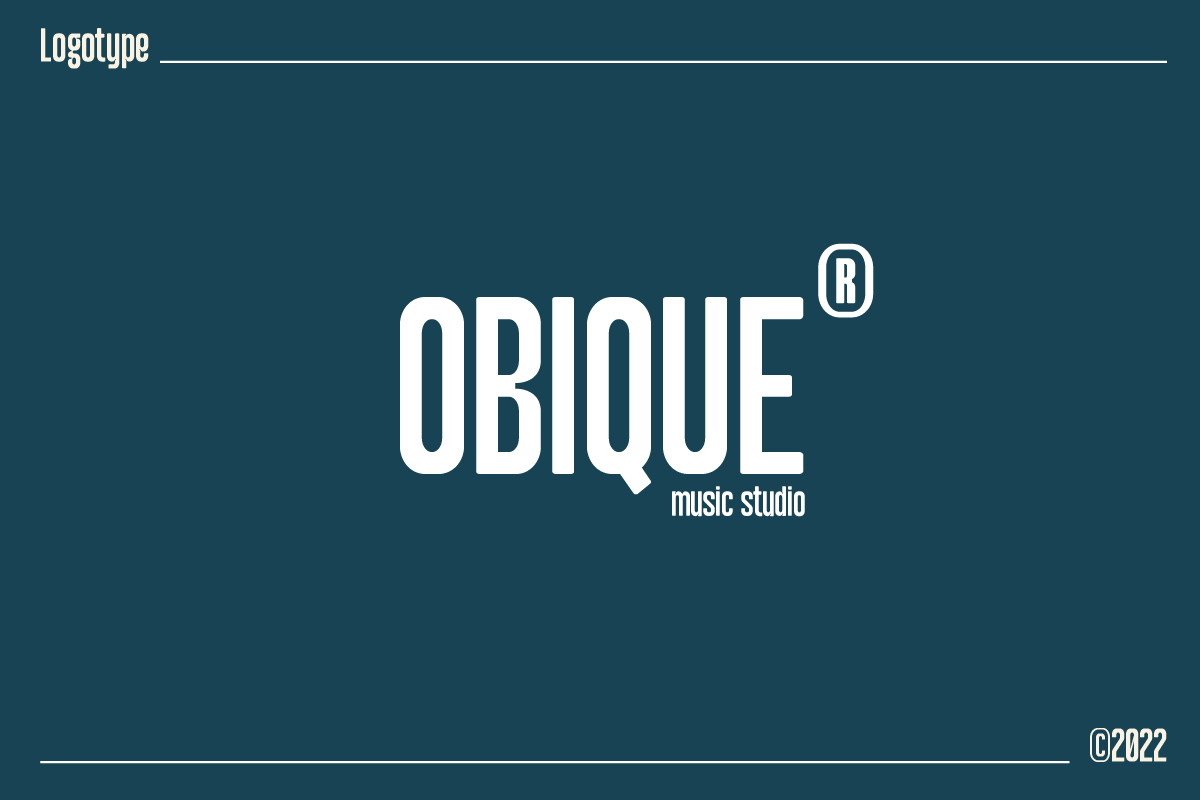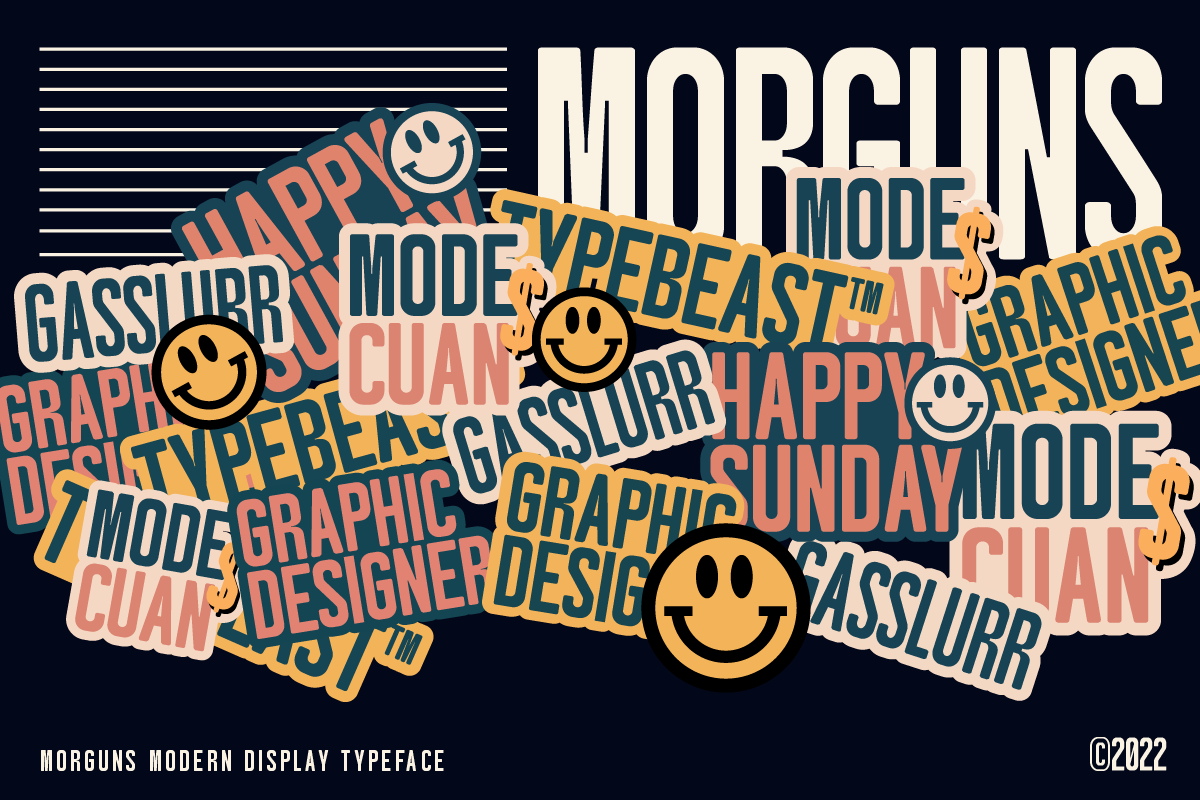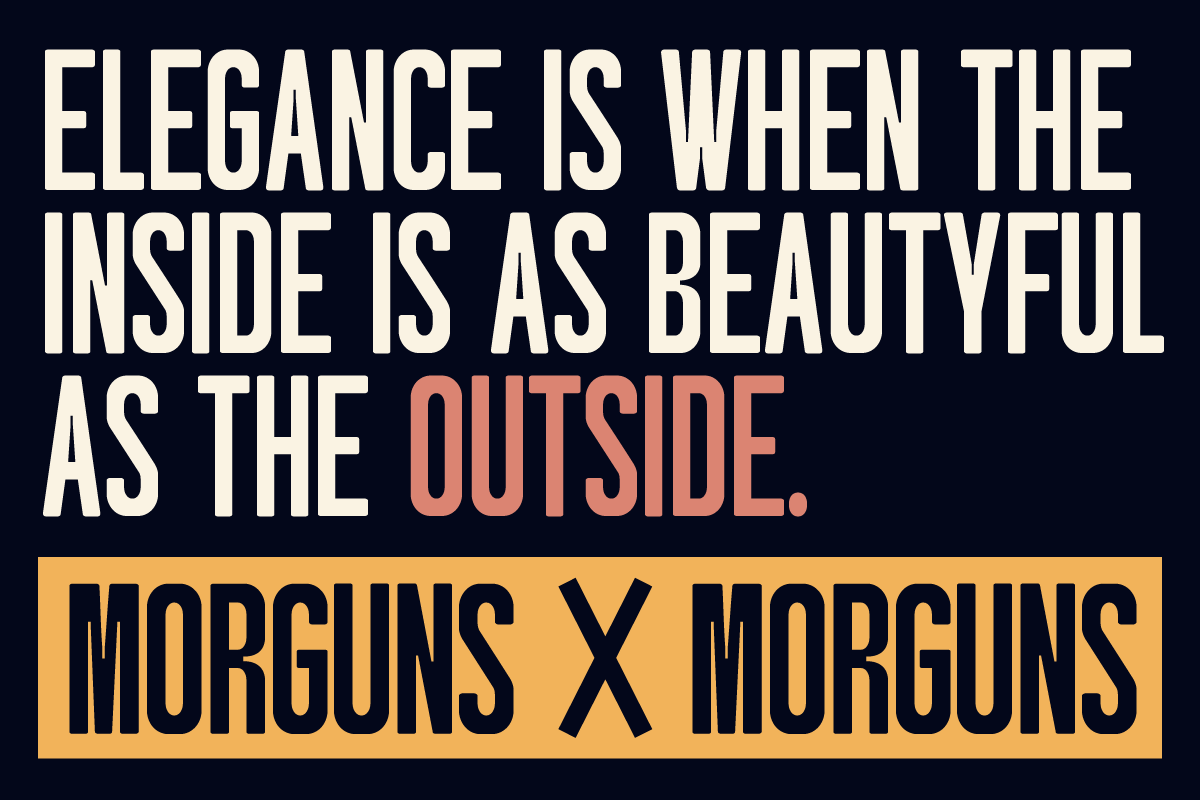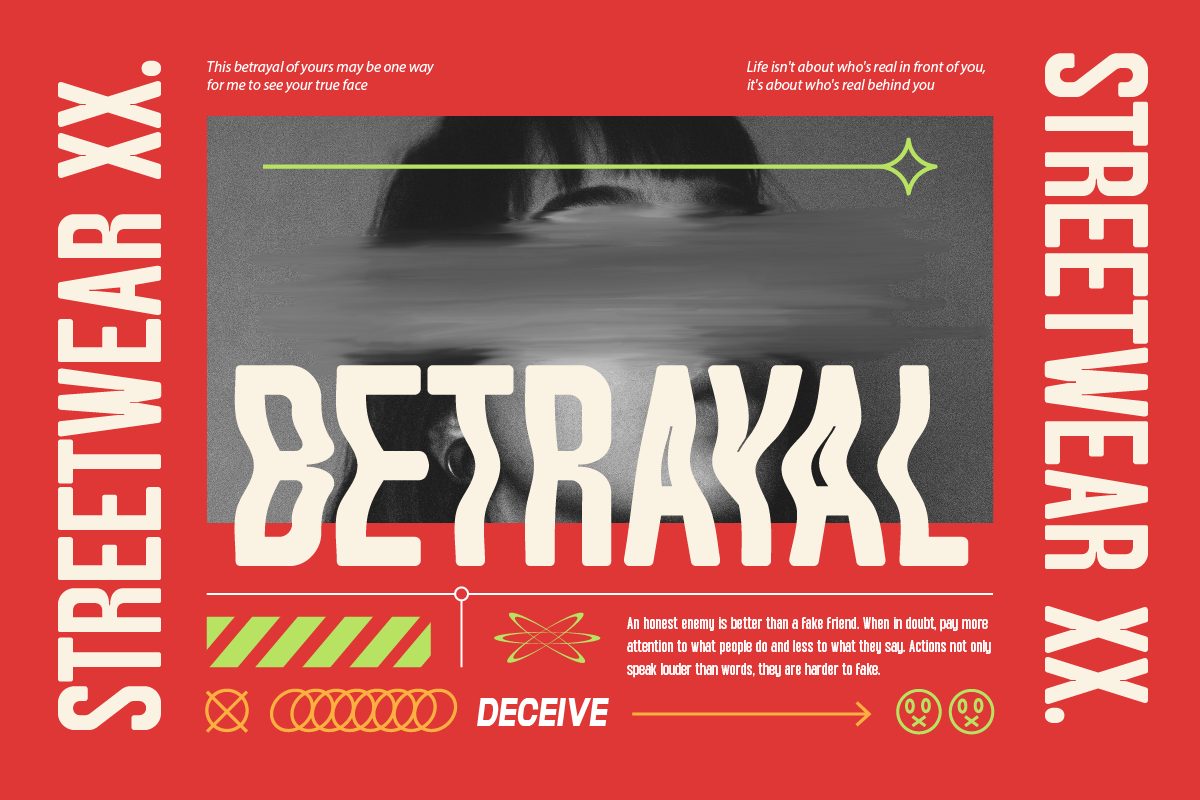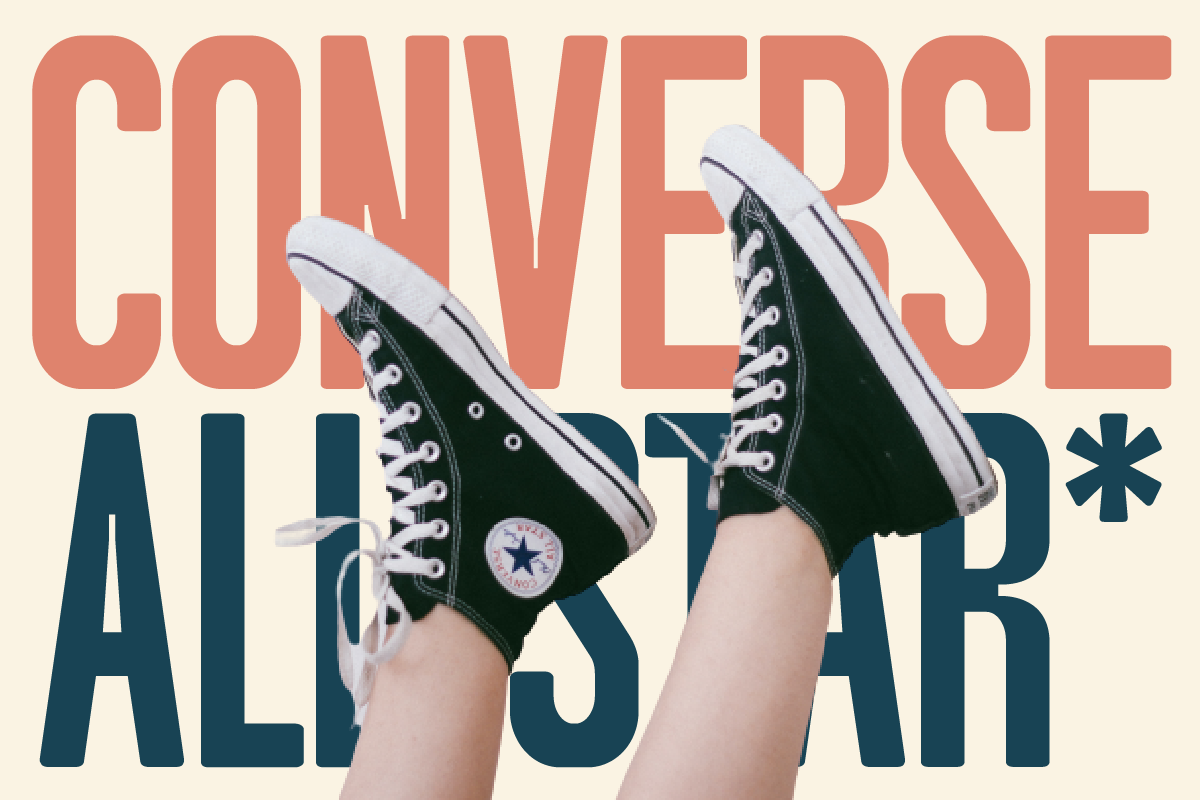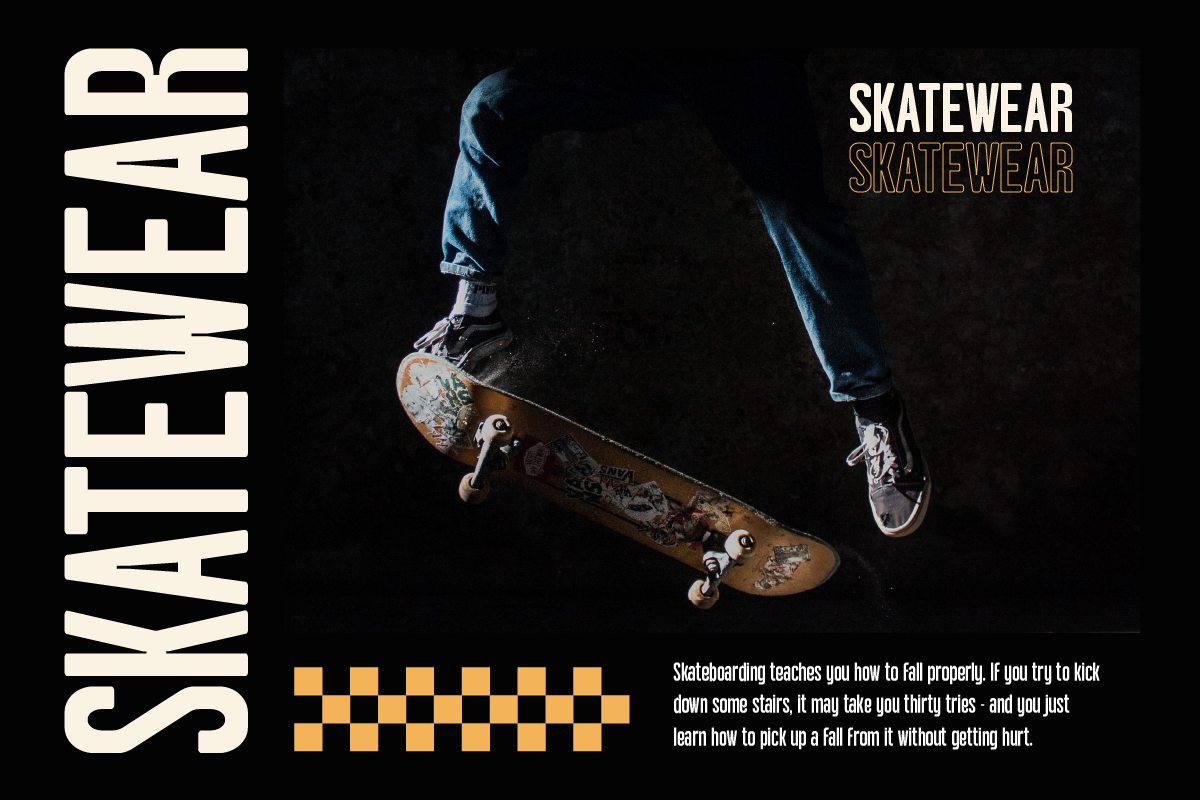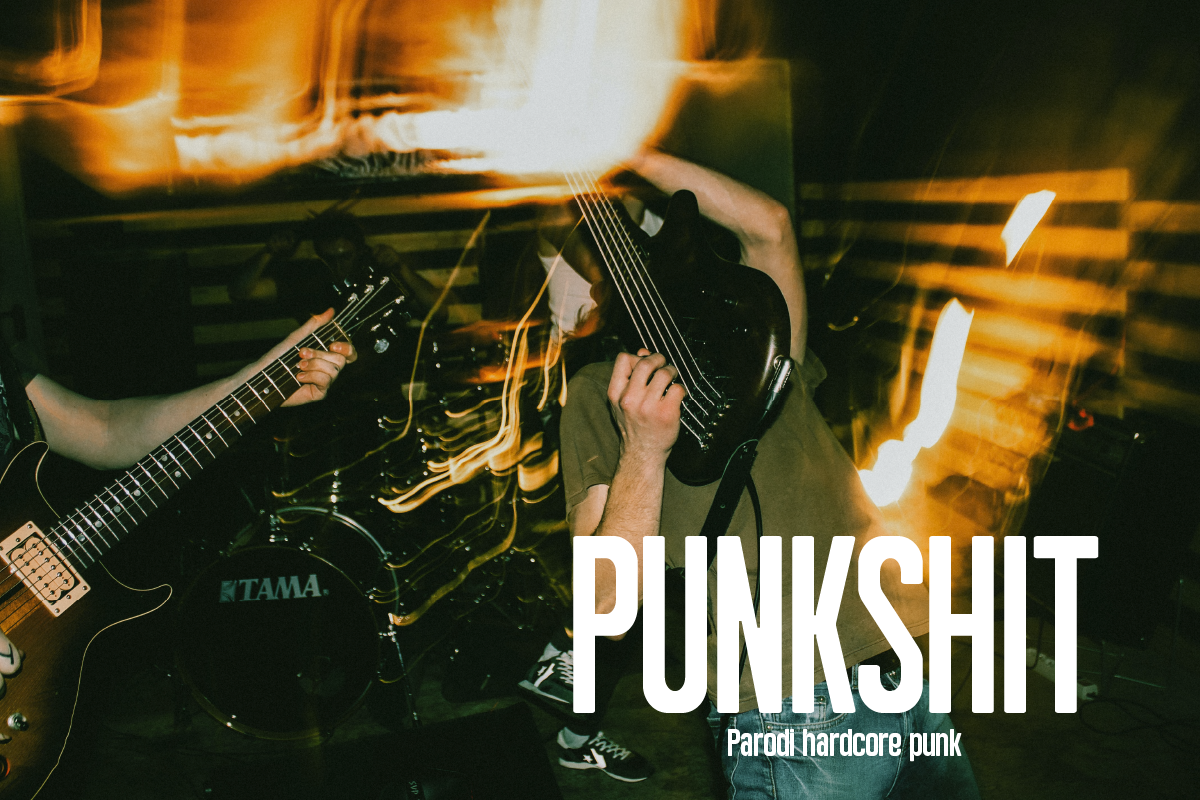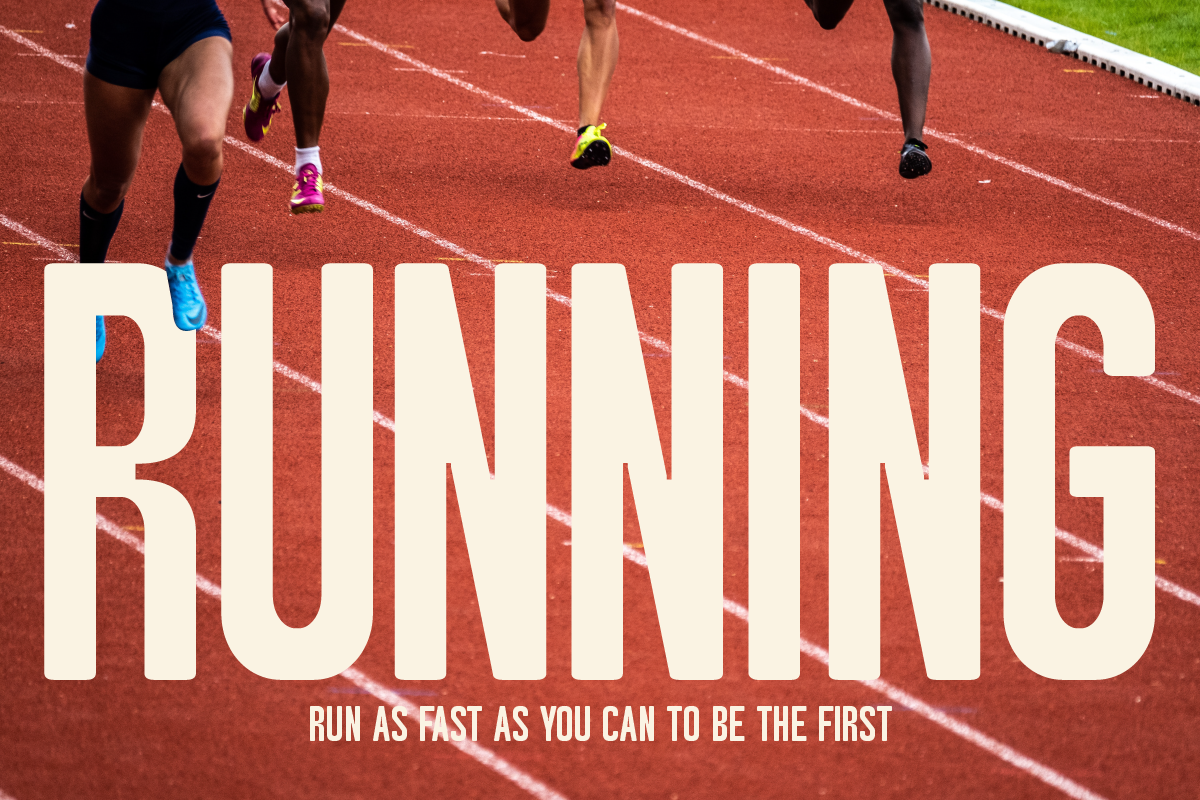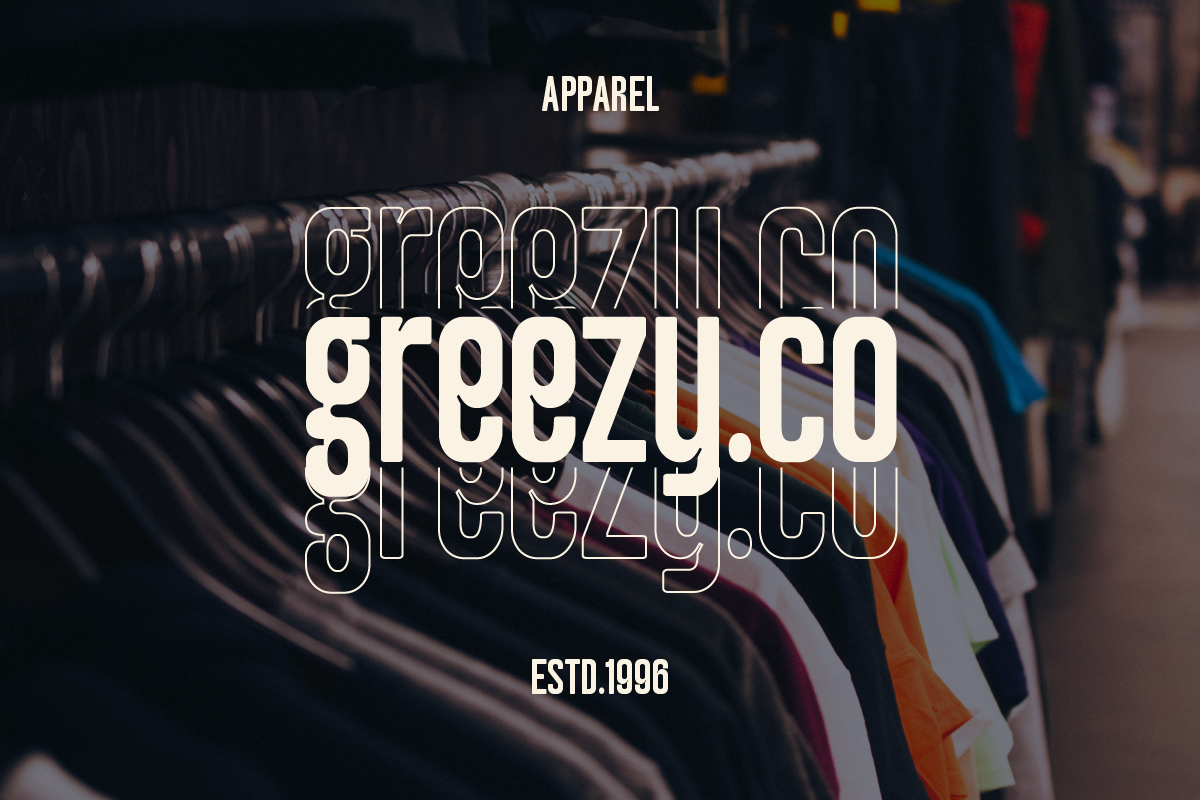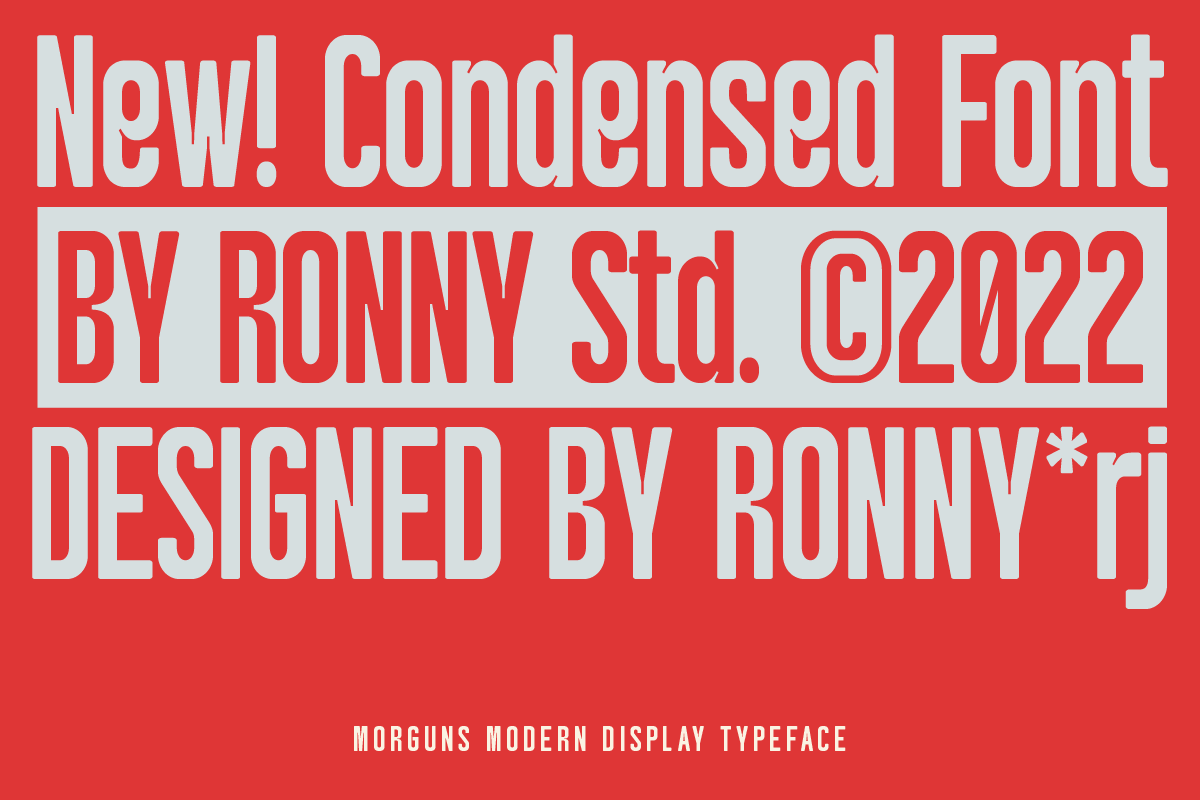
Morguns Bold & Condensed Sans Serif
MORGUNS – A Bold Condensed Sans Serif for Modern & Edgy Designs 🎯
Introducing MORGUNS, a sleek, modern, and condensed sans serif designed for bold headlines, urban branding, and eye-catching typography. With its strong vertical letterforms and sharp aesthetics, MORGUNS is perfect for projects that need a clean yet commanding presence.
🔠 Key Features:
✅ Condensed & Bold – Perfect for headlines, posters, and branding.
✅ Modern & Stylish – A clean and sophisticated look for contemporary design.
✅ Opentype Features – Includes ligatures, alternates, and stylistic variations.
✅ Multilingual Support – Covers multiple languages for global use.
🚀 Ideal for: Editorial Design, Fashion, Advertising, Luxury Branding, Logos, and more!
💡 Make a Statement with MORGUNS – The Font for Impactful Design!